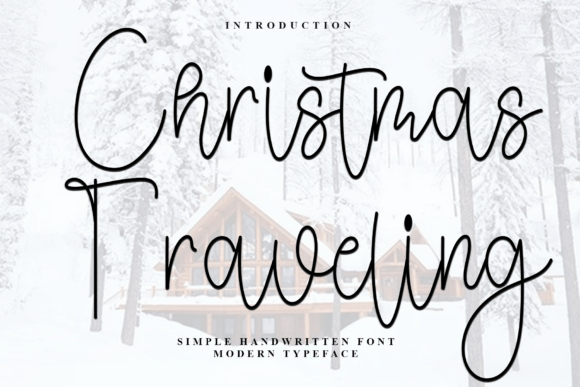
Christmas Traveling Font: A Festive and Merry Typeface for the Holiday Season
The holiday season is upon us, and with it comes the joy of spreading cheer and merriment through our designs. One of the most effective ways to add a touch of festive flair to your projects is with a specially crafted font, like Christmas Traveling Font. This delightful typeface is designed to capture the spirit of the holiday season, with its decorative elements and whimsical flair.
What is Christmas Traveling Font?
Christmas Traveling Font is a festive and merry typeface that is perfect for adding a touch of enchantment to your designs. With its decorative elements and whimsical flair, this font is sure to bring a cheerful and nostalgic ambiance to your words. Whether you’re creating greeting cards, gift tags, or holiday-themed projects, this font is the perfect choice.
Key Features of Christmas Traveling Font
- Decorative Elements: Christmas Traveling Font features decorative elements that add a touch of festive flair to your designs.
- Whimsical Flair: The font’s whimsical flair makes it perfect for creating holiday-themed projects that are both fun and playful.
- Multilingual Support: Christmas Traveling Font supports multiple languages, making it perfect for designers around the world.
Uses for Christmas Traveling Font
Christmas Traveling Font is a versatile typeface that can be used for a variety of projects, including:
- Greeting Cards: Create festive and merry greeting cards for friends and family.
- Gift Tags: Add a touch of enchantment to your gift tags with this delightful font.
- Holiday-Themed Projects: Use Christmas Traveling Font to create holiday-themed projects, such as posters, flyers, and brochures.
- Social Media Graphics: Add a touch of festive flair to your social media graphics with this cheerful font.
Benefits of Using Christmas Traveling Font
Using Christmas Traveling Font offers a range of benefits, including:
- Unique and Festive Designs: This font allows you to create unique and festive designs that will stand out from the crowd.
- Multilingual Support: This font supports multiple languages, making it perfect for designers around the world.
- High-Quality Typography: Christmas Traveling Font offers high-quality typography that will add a touch of professionalism to your designs.
Tips and Tricks for Using Christmas Traveling Font
Here are some tips and tricks for using Christmas Traveling Font:
- Experiment with Different Sizes: Experiment with different sizes to find the perfect fit for your design.
- Pair with Other Fonts: Pair Christmas Traveling Font with other fonts to create a unique and interesting design.
- Use Decorative Elements: Use the font’s decorative elements to add a touch of festive flair to your design.
- Keep it Simple: Don’t overcomplicate your design – keep it simple and elegant to let the font shine.
Christmas Traveling Font is a festive and merry typeface that is perfect for adding a touch of enchantment to your designs. With its decorative elements and whimsical flair, this font is sure to bring a cheerful and nostalgic ambiance to your words. Whether you’re creating greeting cards, gift tags, or holiday-themed projects, this font is the perfect choice.